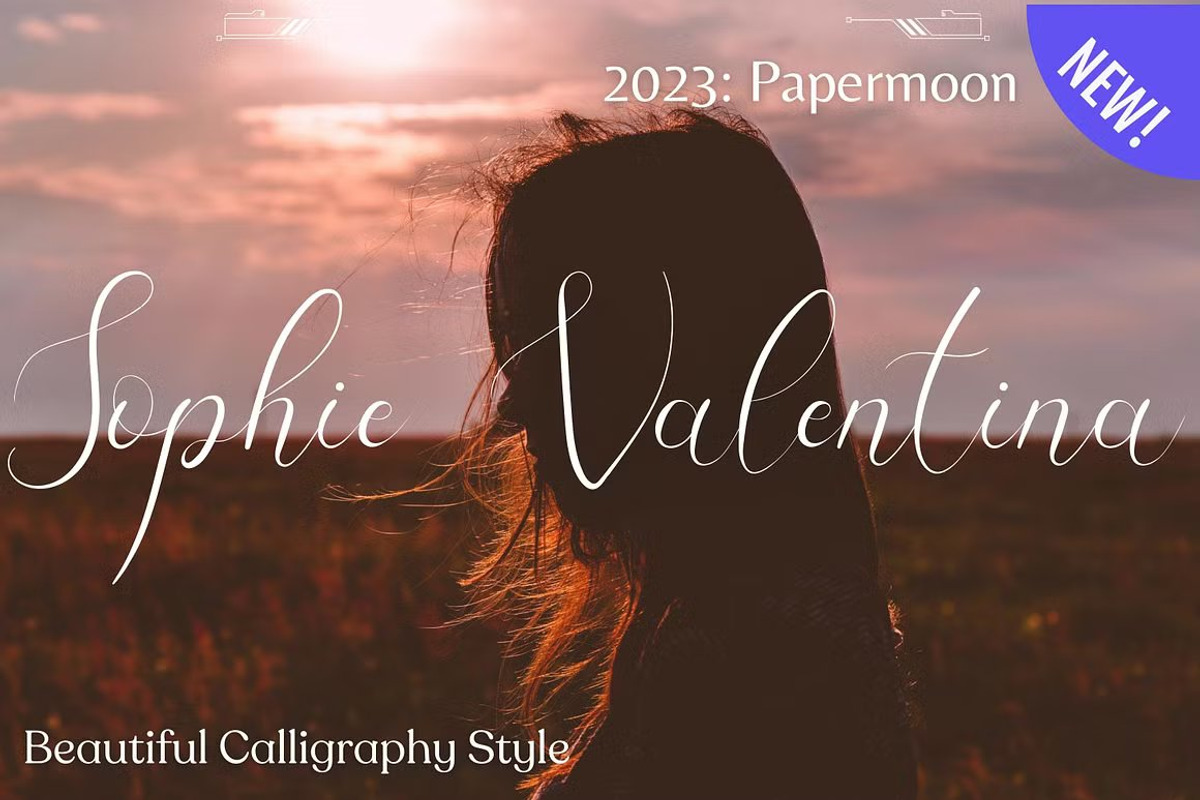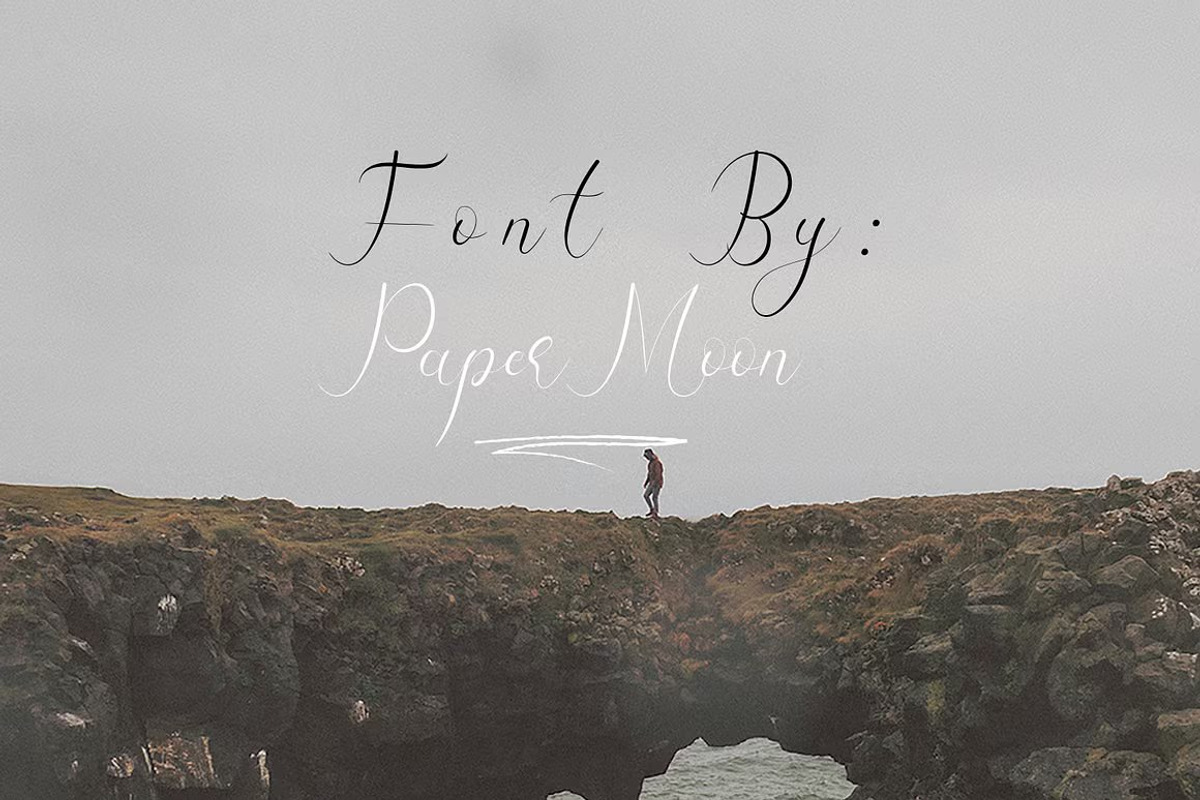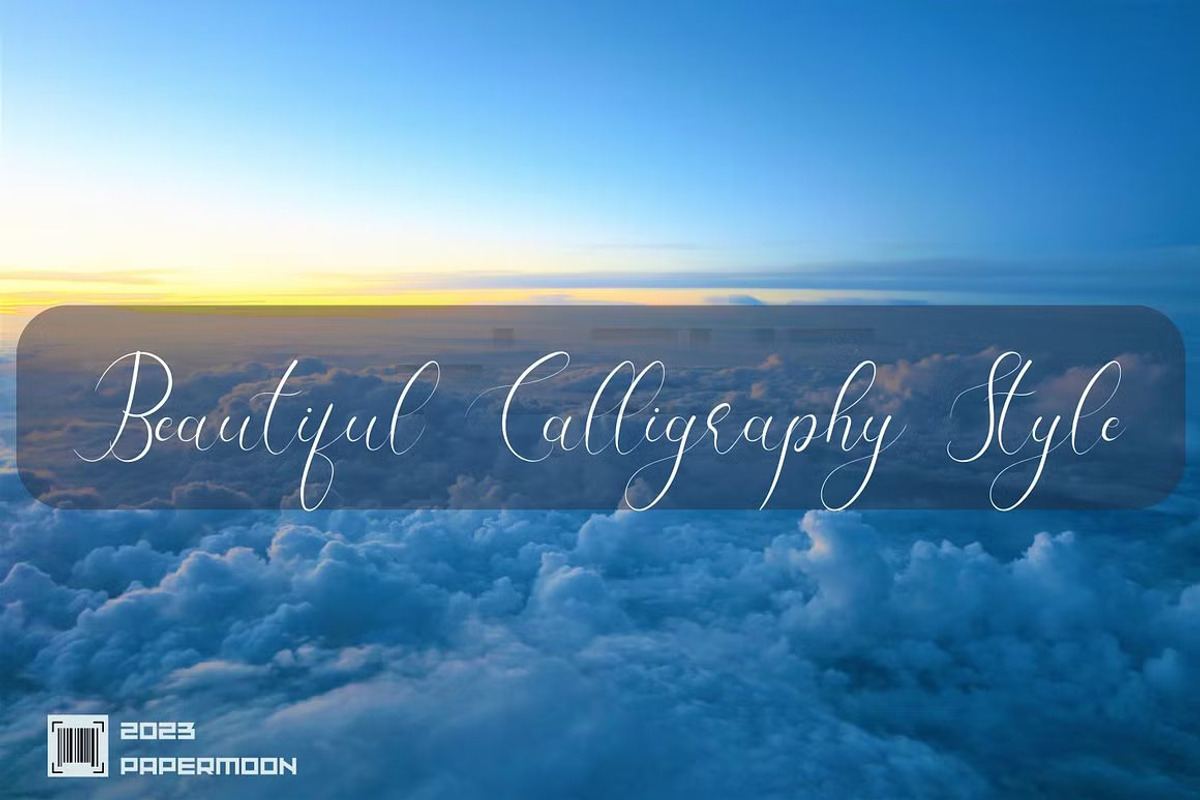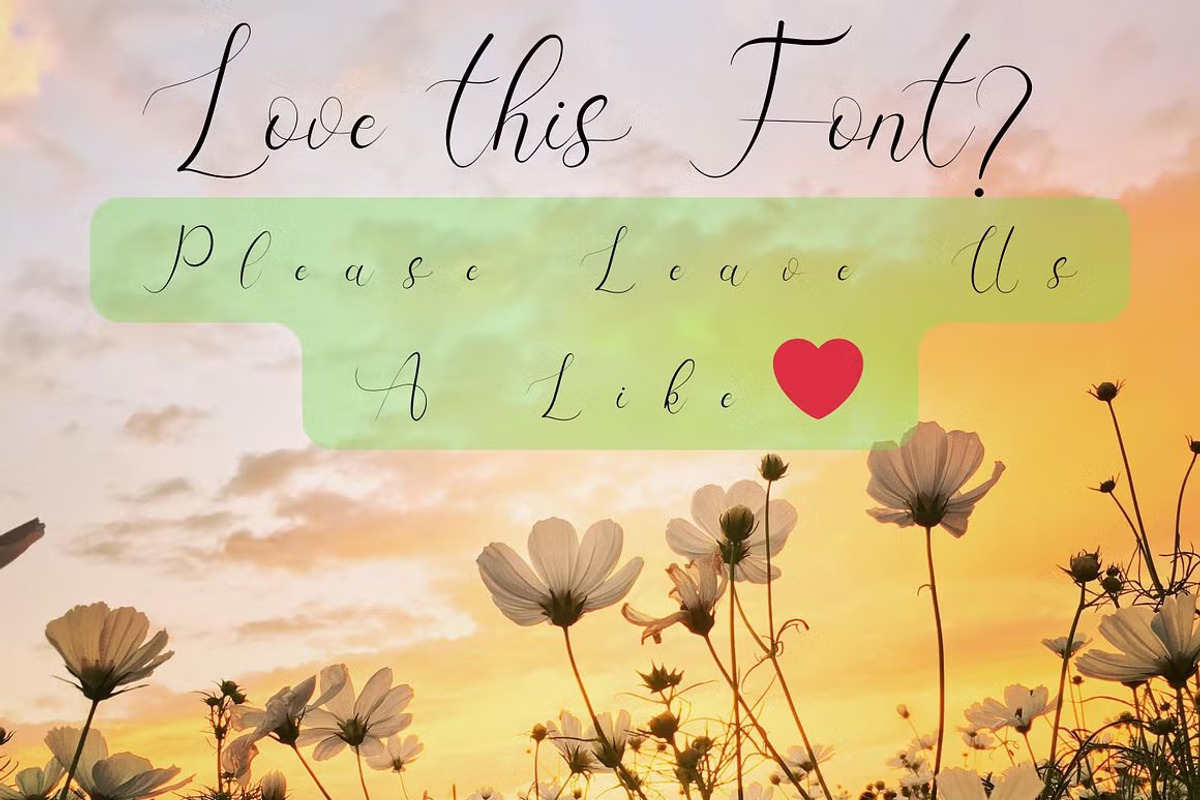
Sophie Valentina: Signature Font
Introducing Sophie Valentina Calligraphy Font: An Exquisite Script for Elegant Designs
Attention all creatives! We are excited to present one of our latest additions: Sophie Valentina Calligraphy Font. This captivating calligraphy script style is a sophisticated and glamorous addition to our collection, perfect for adding a touch of femininity, luxury, elegance, vintage charm, and natural allure to your projects.
Sophie Valentina Calligraphy Font is incredibly versatile, making it suitable for a wide range of industries, including weddings, advertising, displays, music, cafes, florists, gardening, makeup, and various design projects. With an extended license, the creative possibilities are limitless, allowing you to design branding elements (logos, stationery, business cards, headers, folders, and more), promotional materials (flyers, brochures, postcards, etc.), digital marketing assets (banners, ads, covers, etc.), personal invitations, magazines, websites, and more.
OTF Files TTF Files WOFF Files Sophie Valentina Calligraphy Font offers a unique and exclusive set of glyphs, making it the perfect choice for creating logos, flyers, stationery, business cards, signage, brochures, and much more. Your creativity knows no limits with this beautiful and versatile typeface.
Elevate your designs with confidence and elegance—Sophie Valentina Calligraphy Font is ready for your creative touch!